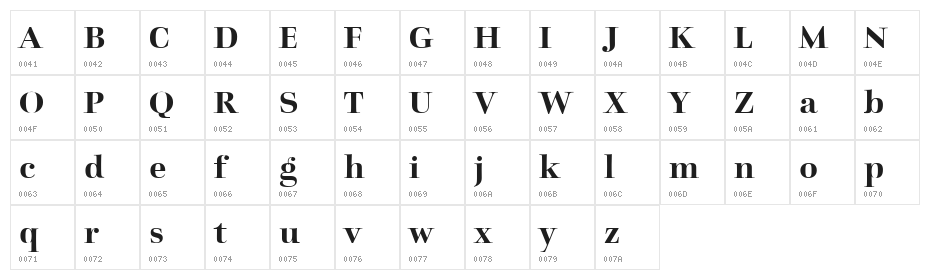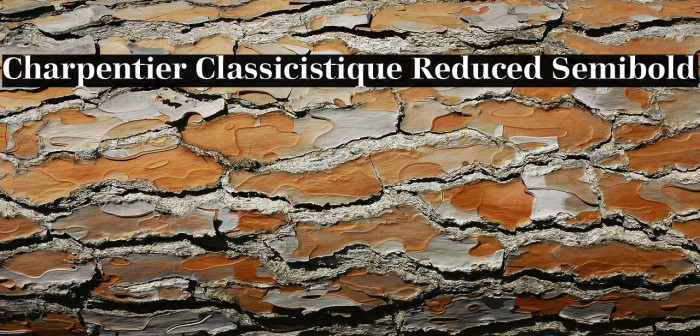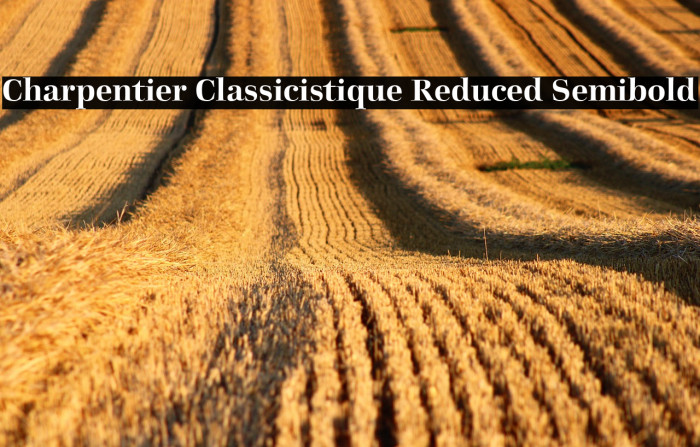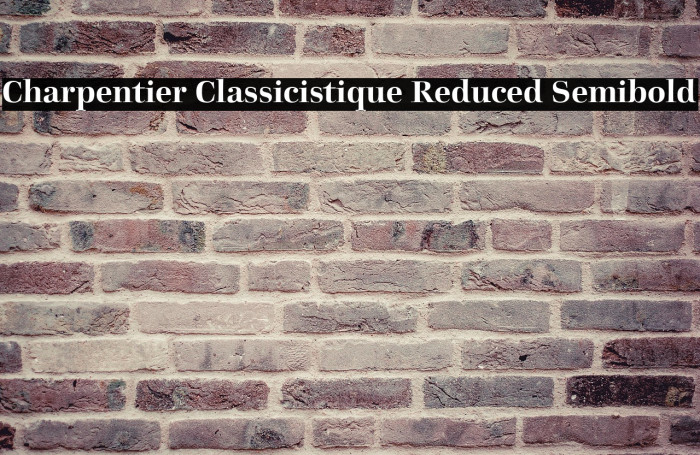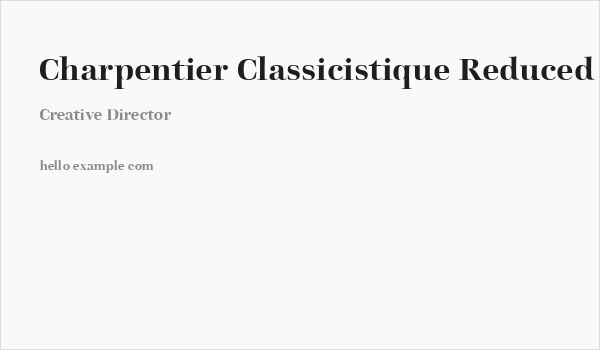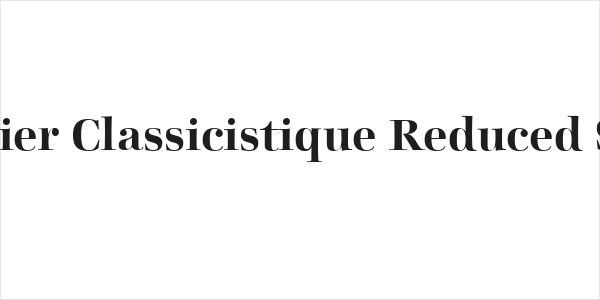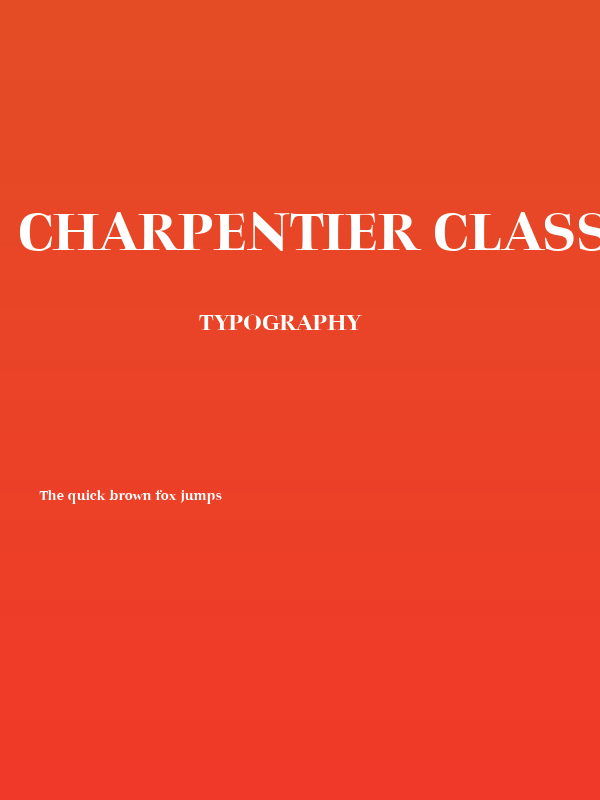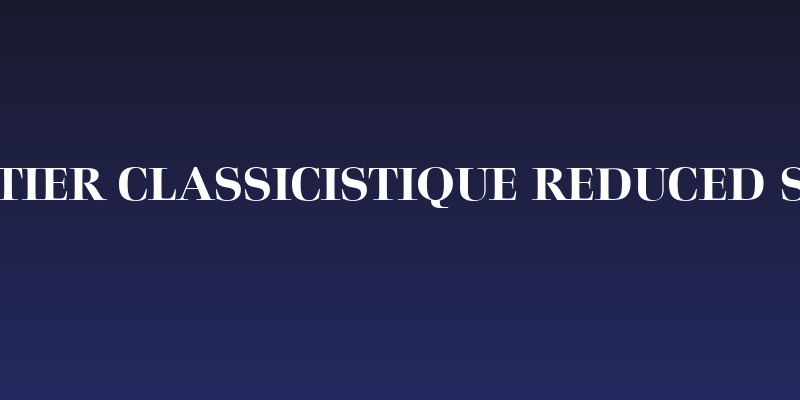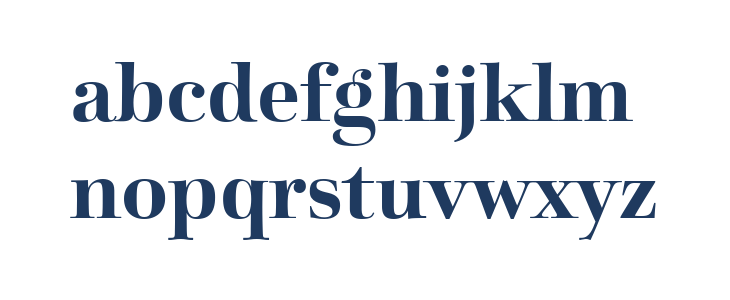
Charpentier Classicistique Reduced Semibold Font
Charpentier Classicistique Reduced Semibold Description
This font exhibits a classic and elegant serif style, characterized by its refined and sophisticated appearance. The uppercase letters are bold and commanding, with sharp serifs that add a touch of formality and tradition. The lowercase letters maintain a balanced proportion, offering a harmonious blend of curves and straight lines. The overall design is reminiscent of traditional serif fonts, yet it incorporates modern elements that make it suitable for contemporary use. The font's medium contrast in stroke thickness enhances readability while maintaining a stylish aesthetic. Its versatility allows it to be used in various design contexts, from formal documents to creative projects.
| Proposed Projects | Ideal for book covers, editorial design, branding, and formal invitations. |